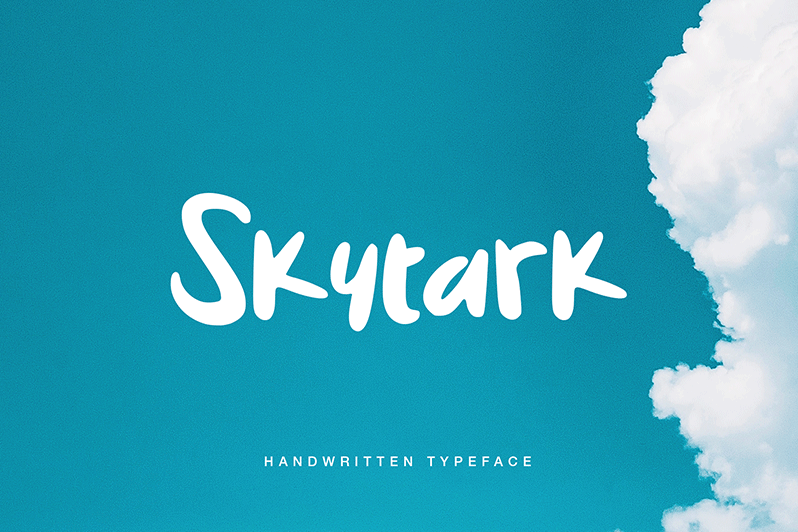
Font name: | Skytark |
Author: | Senhikari |
Note by Senhikari | |
Introducing Skytark Handwritten Typeface is a clean and bold brush script that written casually and modern. Skytark is FREE FOR COMMERCIAL USE. For commercial use please send email to Saidi.uchiha@yahoo.com or Buy here: https://creativemarket.com/sentype/3963470-Skytark-Display-Typeface |